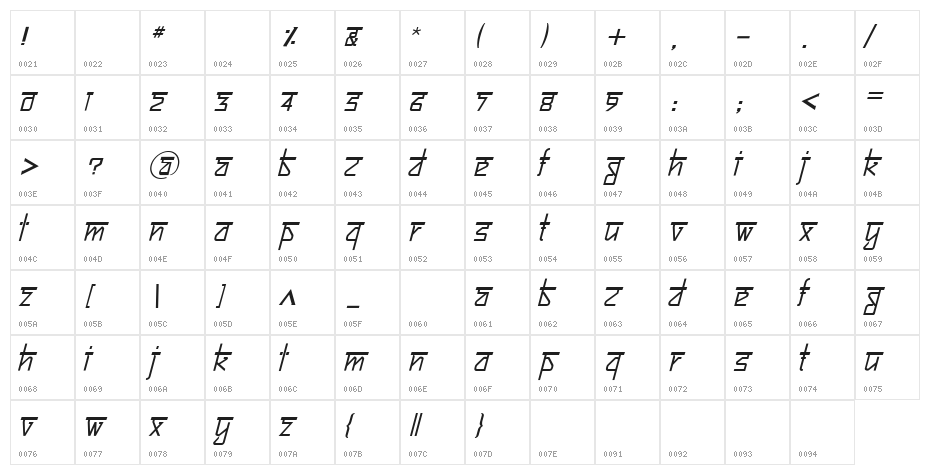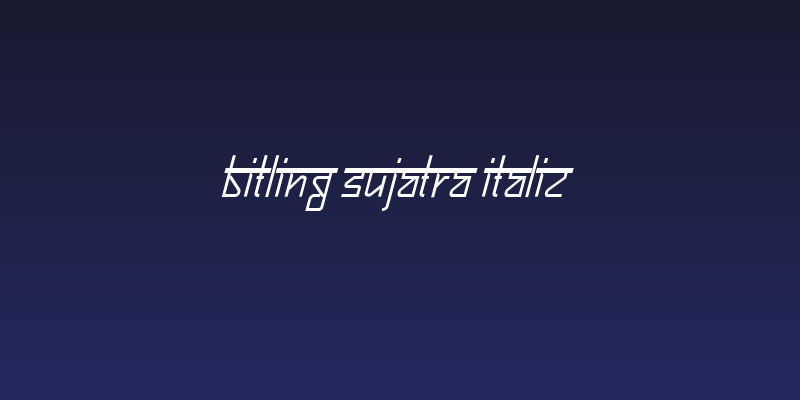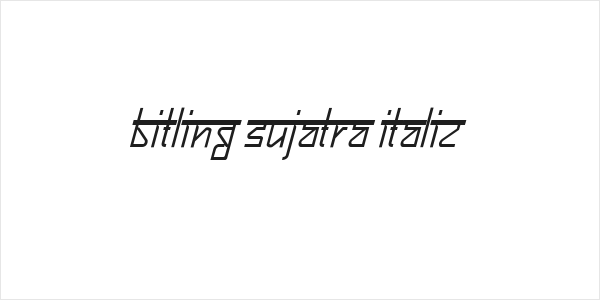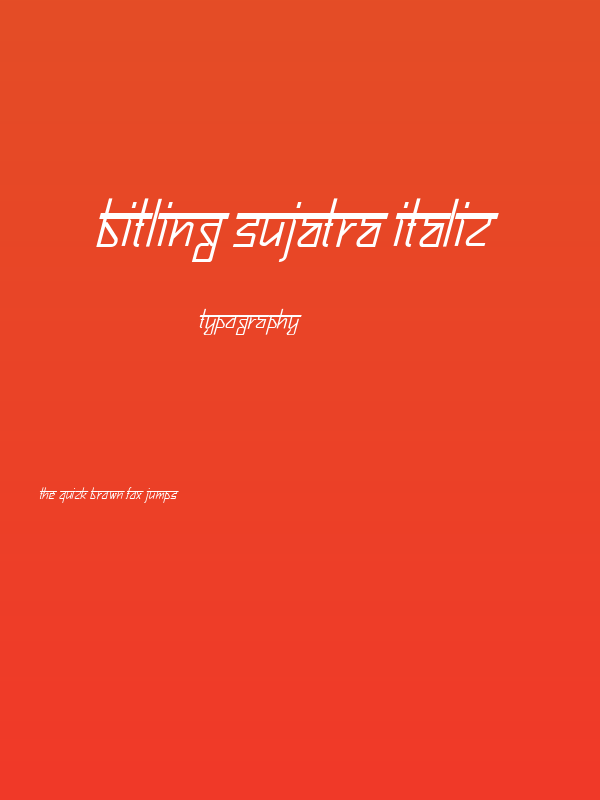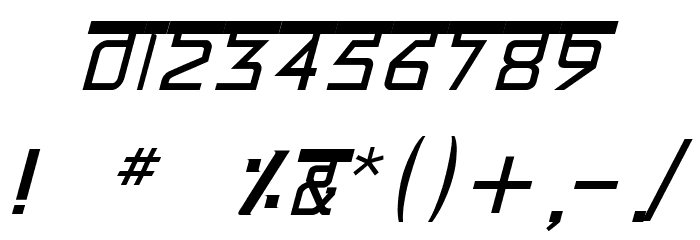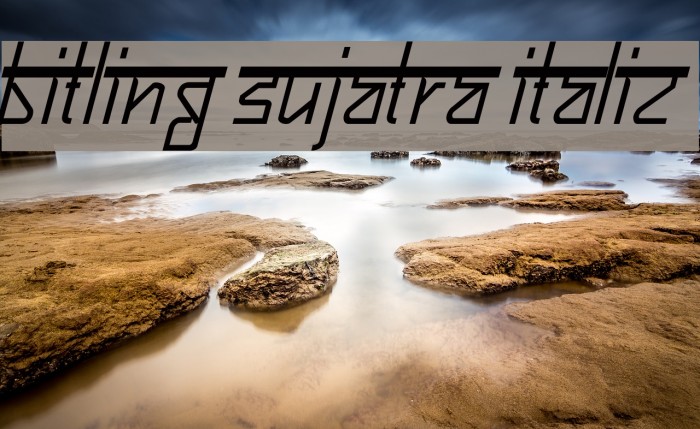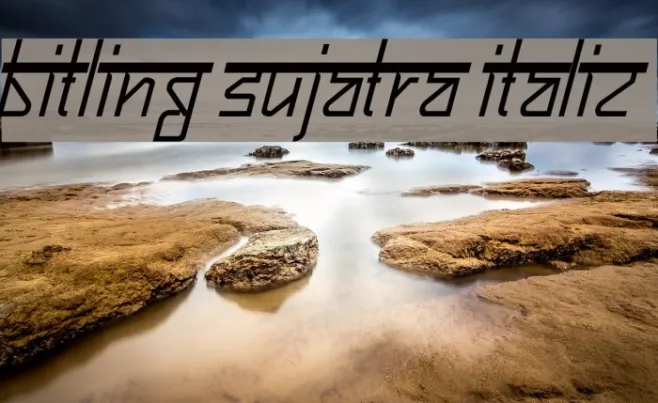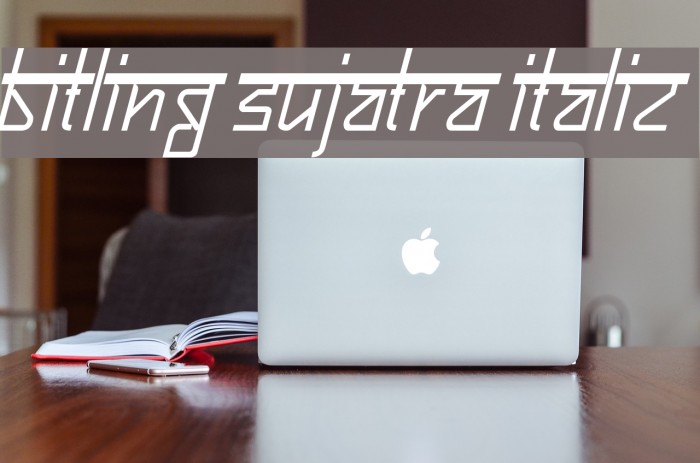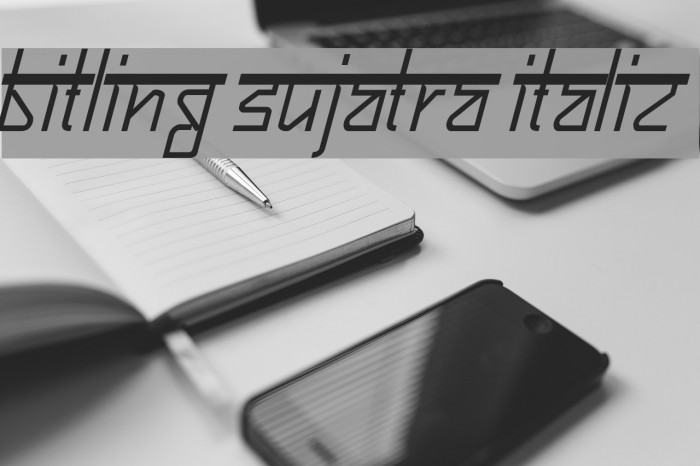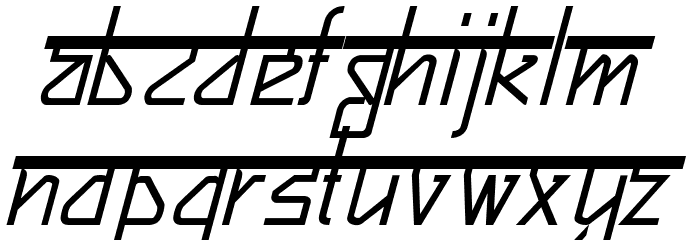
Bitling sujatra Italic Font
Bitling sujatra Italic Description
This font features a dynamic and modern italic style with a distinct slant, giving it a sense of motion and energy. The characters are angular and geometric, with sharp edges and clean lines that create a futuristic appearance. The uppercase and lowercase letters maintain a consistent style, with a unique approach to curves and angles that sets it apart. The numerals are equally stylized, matching the overall aesthetic of the alphabet. Special characters are designed to complement the font's sleek and contemporary look, making it suitable for a variety of creative applications.
| Overall Style | Futuristic, Dynamic |
| Use Case | Logos, Headlines, Posters |
| Proposed Projects | Ideal for tech branding, modern advertising, futuristic posters, and digital media. |